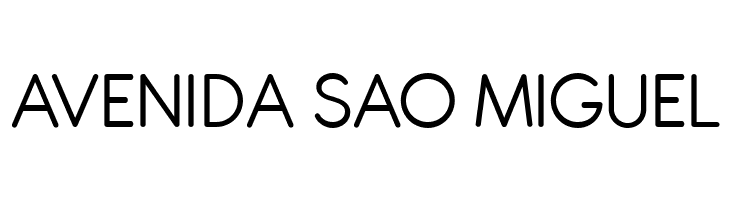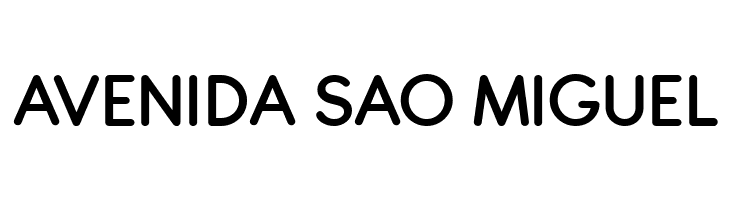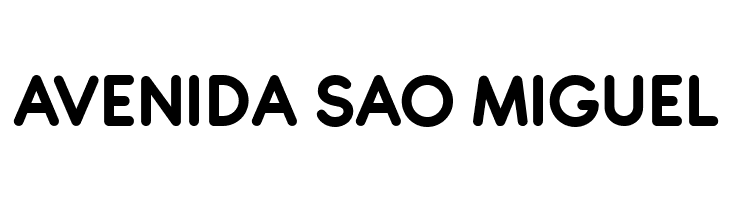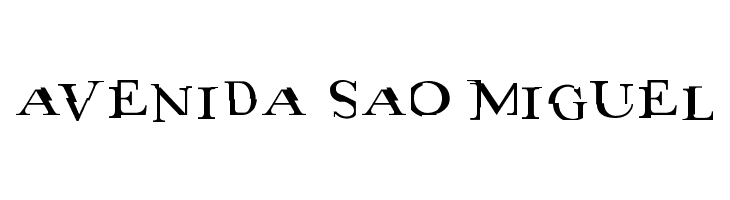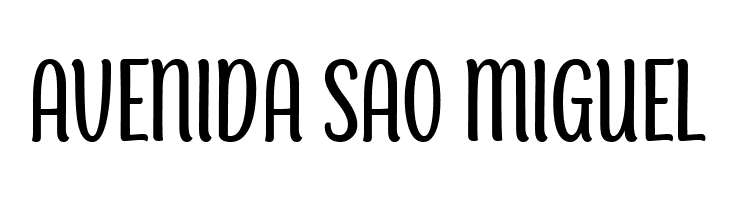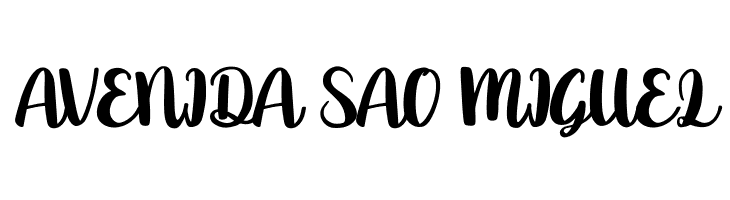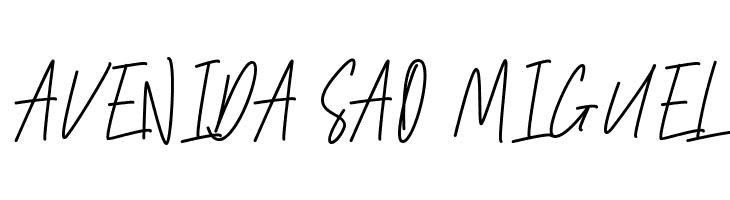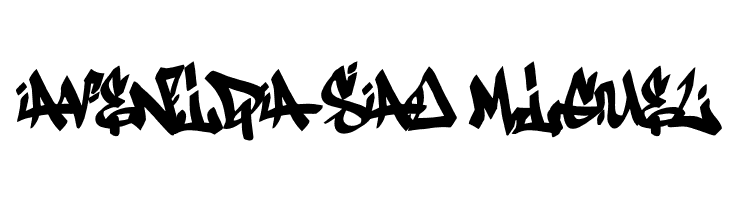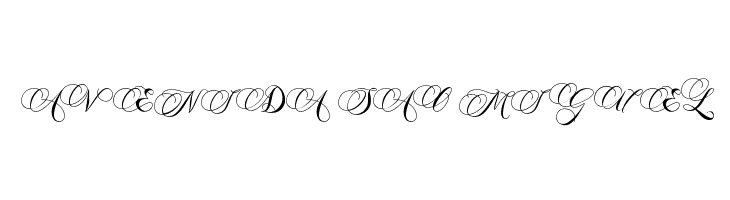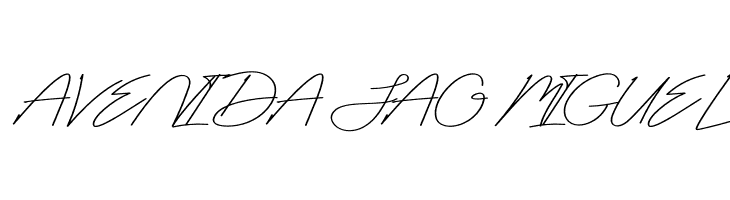
• anthusia
A bold, expressive script font with flowing, cursive letterforms.
• Anti Corona
A bold, rounded font with a friendly and modern appearance.
• ANTI GRAVITY Bold Personal Use
A bold, playful font with dynamic, uneven strokes and a whimsical style.
• ANTI GRAVITY Personal Use
A bold, hand-drawn font with a graffiti-like, edgy style.
• Antica Signature
A refined and elegant cursive script font with flowing, connected letters.
• Anticed
A playful, rounded font with smooth curves and a friendly appearance.
• Anticipatio
A bold, angular font with a futuristic and edgy design.
• Anticode
• Antidote Personal Use
A bold, high-contrast script font with elegant, flowing letterforms.
• Antietam
A futuristic, geometric font with clean lines and a modern aesthetic.
• Antifont
A bold, graffiti-inspired font with dynamic, angular characters.
• Antifont DEMO
A bold, graffiti-inspired font with sharp, angular lines and an urban aesthetic.
• Antigna Signature Free
A sophisticated, elegant handwritten font with fluid, graceful strokes.
• Antihero
A bold, brush-style font with a textured, hand-painted appearance.
• Antika
An elegant script font with intricate swirls and flourishes.
• AntikAlphaBeta-Bold
A bold, hand-drawn font with playful and artistic characteristics.
• Antikvar Roman
An ornate and elegant font with decorative swirls and flourishes.
• Antikvar Shadow Roman
An ornate serif font with a shadow effect, offering a classic and elegant style.
• AntiKwa-Bold
A bold, angular font with dynamic strokes and modern elegance.
• AntikWaCom
An artistic, hand-drawn font with angular, whimsical characters.
• Antilkat